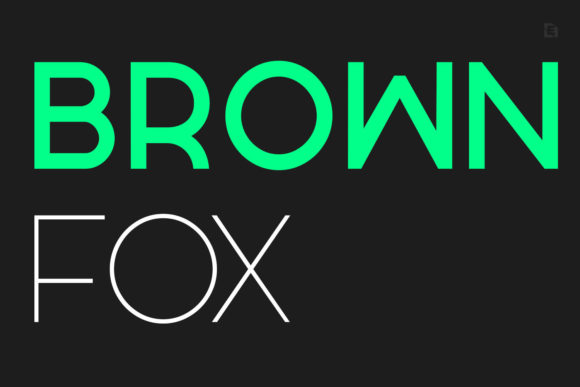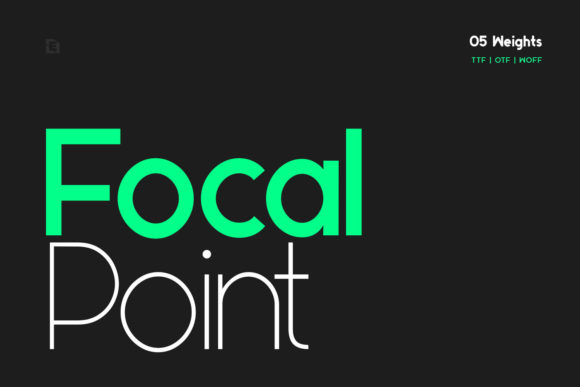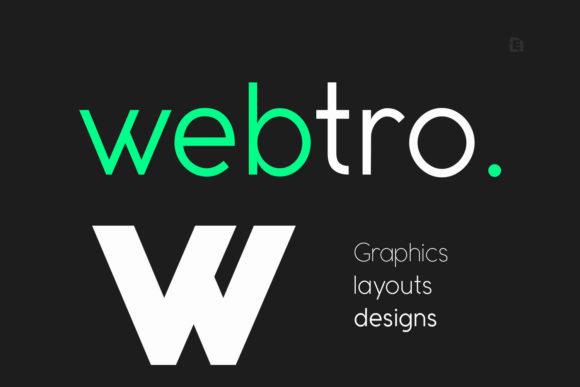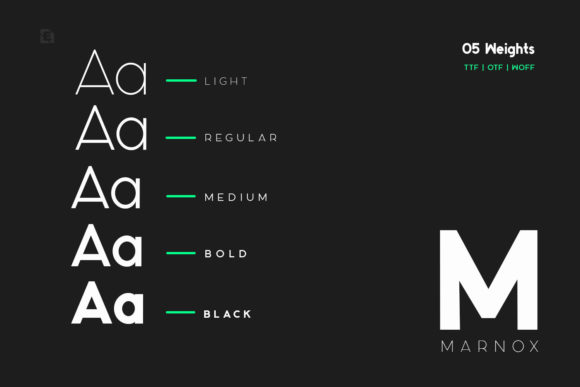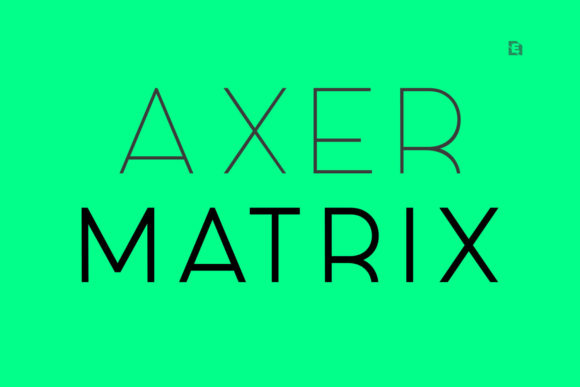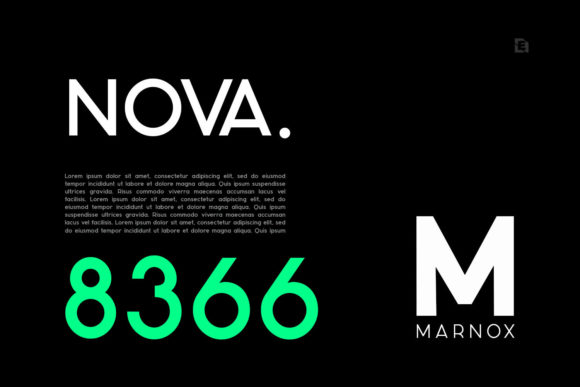
Introduction to Marnox Font
Remember that moment when you finally find the perfect font to elevate your design project? It’s like a breath of fresh air, isn’t it? The feeling of excitement and anticipation as you imagine how it will transform your creative vision. For designers, this moment is priceless, and it’s exactly what the Marnox Font promises to deliver.
As a clean and modern sans serif font, Marnox Font is the perfect addition to any project, from branding to digital interfaces. Its versatility makes it a valuable design resource, allowing you to experiment with different styles and themes. And the best part? It’s available for a free download, so you can start exploring its endless possibilities right away.
With its high-quality design and transparent background, Marnox Font is an ideal choice for designers who want to create visually stunning and cohesive designs. Whether you’re working on a personal project or a commercial one, this font is sure to make your work stand out in the crowd.
Key Features of Marnox Font
- High-quality design with a transparent background, perfect for creative projects that require a clean and modern look.
- Designed to be versatile and suitable for a wide range of creative projects, from branding and advertising to digital art and graphic design.
- Unique characteristics and intricate details that set it apart from other fonts, adding a touch of sophistication and elegance to your design.
Honest Review: Marnox Font
As a designer, I’m always on the lookout for high-quality fonts to elevate my creative projects. Recently, I stumbled upon the Marnox Font, and I’m excited to share my honest review with you.
- ✨ High-quality design: The Marnox Font boasts a sleek and modern design that’s perfect for contemporary creative projects.
- ✨ Transparent background: The font’s transparent background makes it easy to use on any background, giving you complete design flexibility.
- ⚠️ Limited character set: The Marnox Font’s character set is somewhat limited, which might not be ideal for designers who need to work with a wide range of languages or characters.
- ⚠️ Not ideal for small text: Due to its modern design, the Marnox Font might not be the best choice for small text sizes, as it can become difficult to read.
Overall, I’m impressed with the Marnox Font’s design and flexibility. While it may have some limitations, it’s an excellent design resource for designers working on high-end creative projects. If you’re looking for a high-quality font with a modern twist, the Marnox Font is definitely worth checking out.
Common Use Cases for Marnox Font
Marnox Font is a versatile design resource that can be used in a variety of creative projects, including logos, business cards, and social media graphics. Its high-quality design and transparent background make it perfect for use in a range of design software and applications.
Getting the Most Out of Marnox Font
To get the most out of Marnox Font, be sure to experiment with different font sizes, colors, and combinations to create unique and eye-catching designs. You can also use the font in conjunction with other design elements, such as graphics and images, to create a cohesive and visually appealing design.